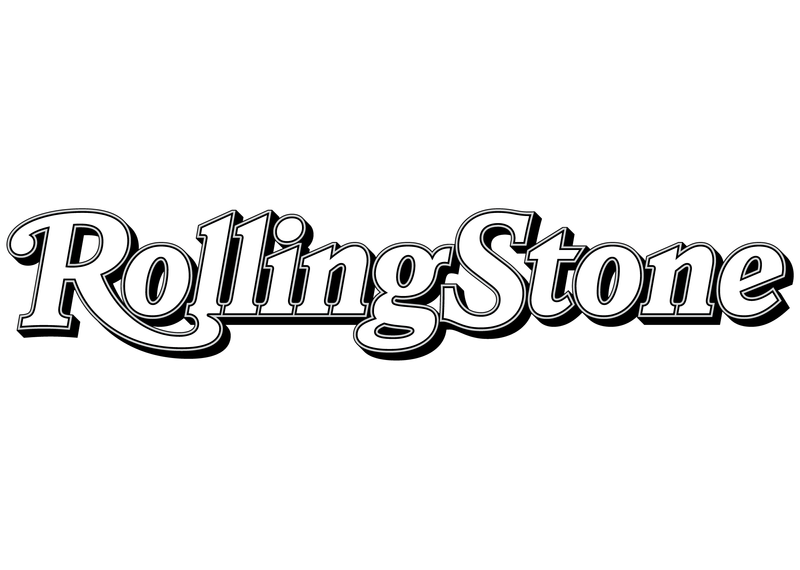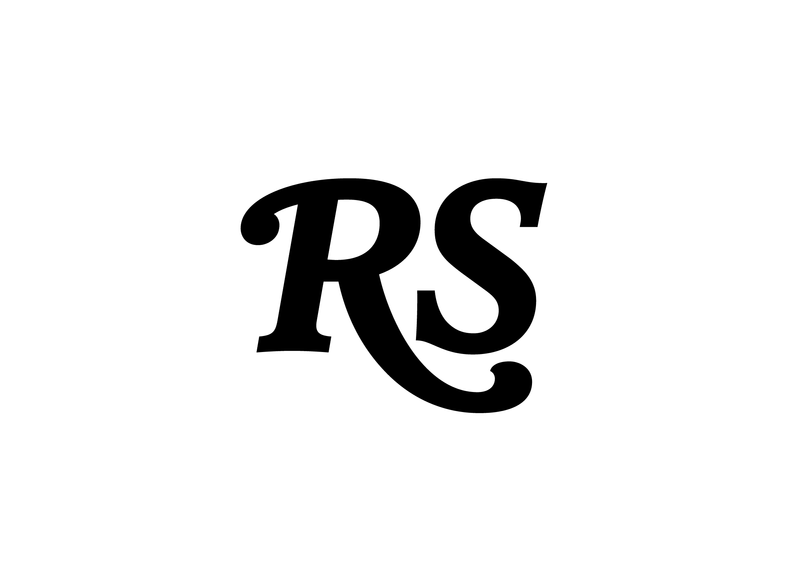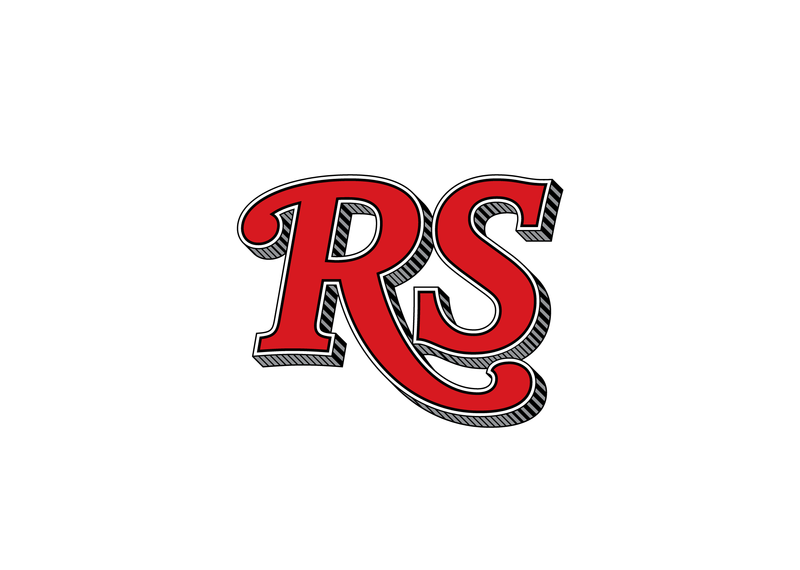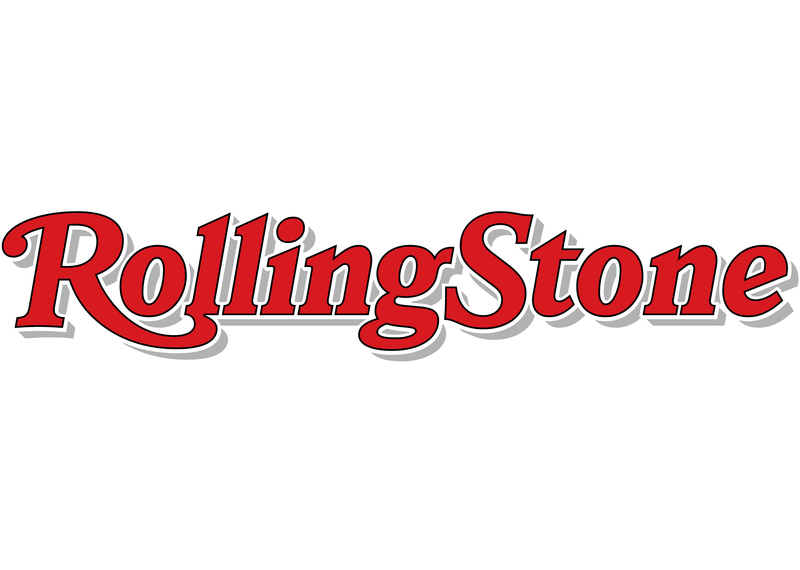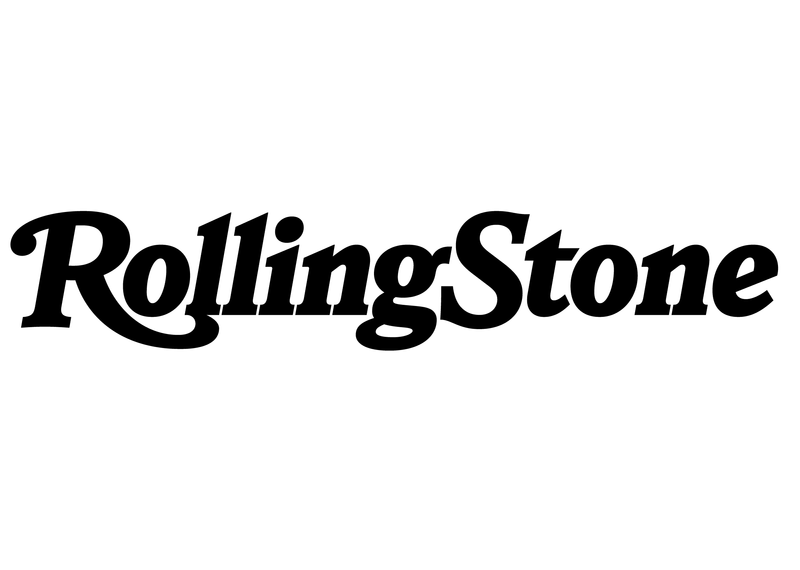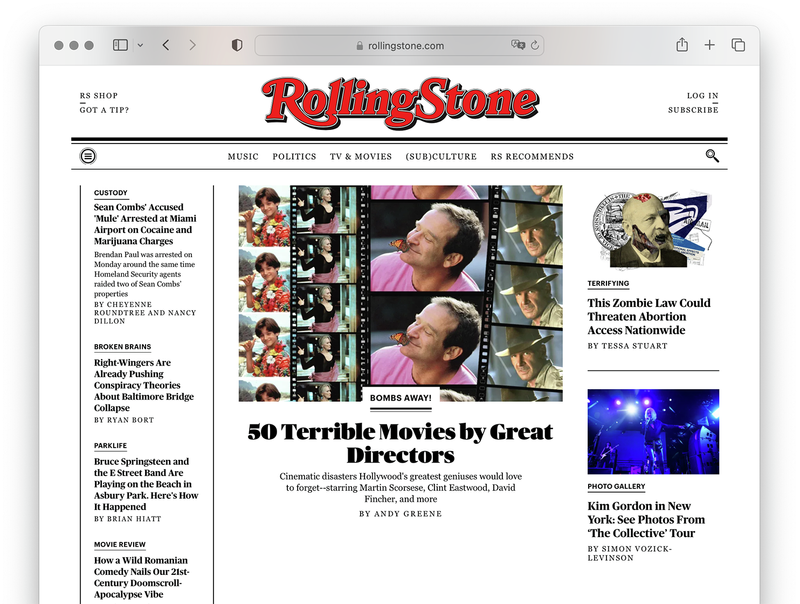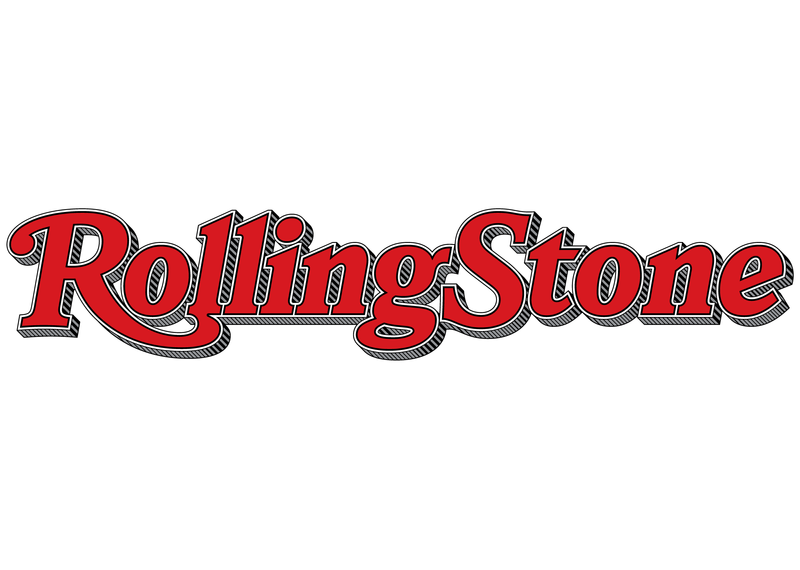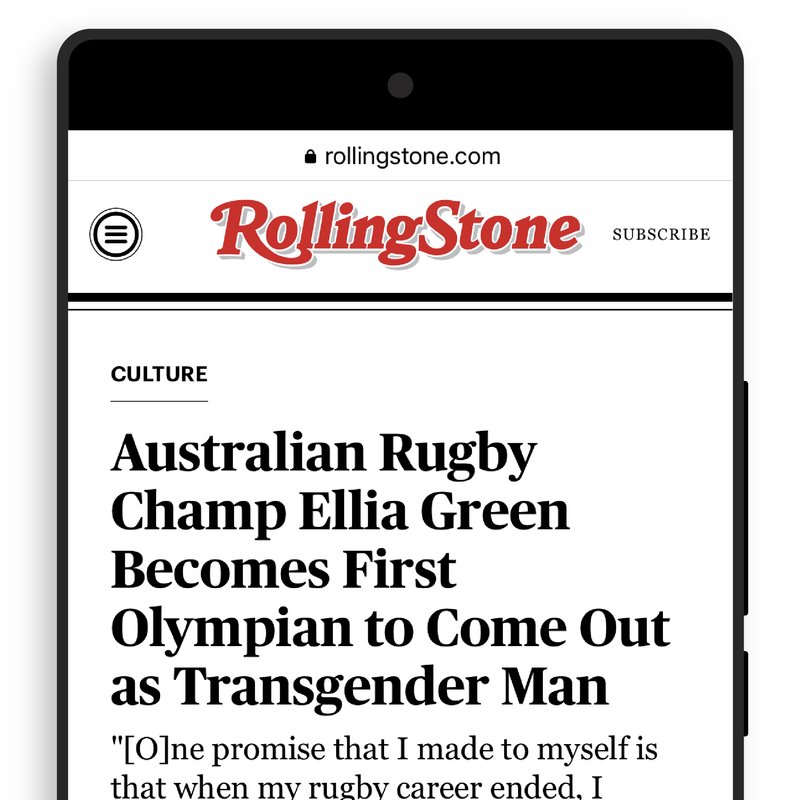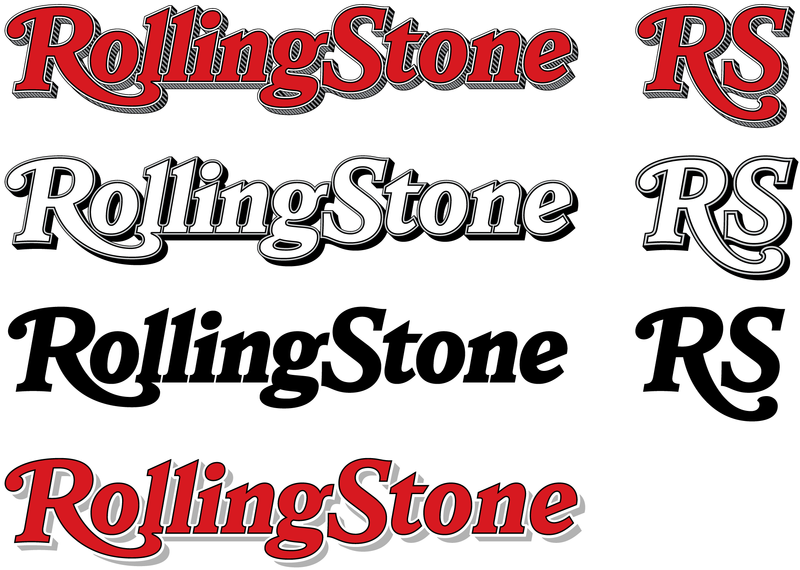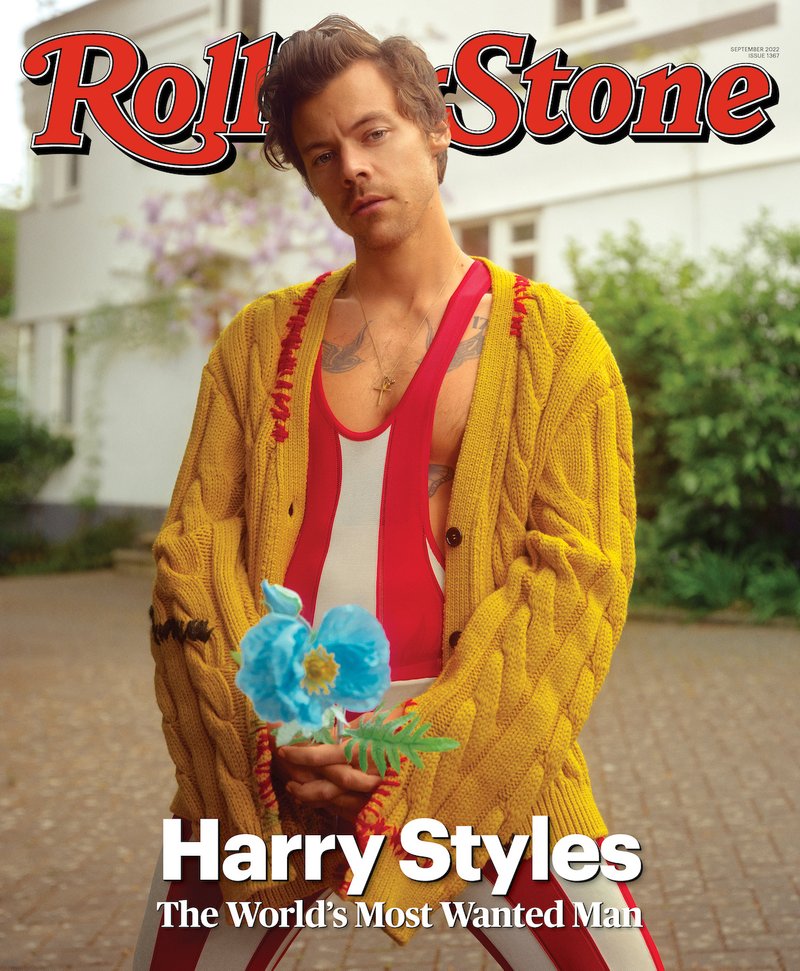
Custom lettering for Rolling Stone magazine
The new Rolling Stone logo, cropped
A glimpse of the new Rolling Stone wordmark
Lettering, legacy, and rock ’n’ roll
Few magazines have a visual presence as iconic as Rolling Stone’s—outlandish, ornate, and memorable. Since its founding by publisher Jann Wenner in 1967, it has been an important vanguard of culture and political news viewed through the lens of music and musicians.
Roger Black, art director of Rolling Stone from 1976 to 1978 and currently chair of Type Network, approached XYZ Type to redesign the classic logo in 2021. As one of Type Network’s foundry partners, we were thrilled at the prospect of putting our own lettering on the cover of this influential magazine, and intrigued by the challenge of celebrating the publication’s visual history by creating something entirely new.
The assignment was a paradox. How could we make the logo look like it did in the past, without making it feel dated? My hope is that loyal readers will believe the old logo is back, but on closer inspection will be surprised to notice how much it has been modernized.
Jesse Ragan, XYZ Type
A history of the Rolling Stone logo
Rolling Stone’s original logo from 1967, in simple black and white
The 1967 logo, drawn by Rick Griffin
1967–1977: For Rolling Stone’s first decade, it sported a logo concept originally sketched by San Francisco poster artist Rick Griffin and later refined by type designer John Pistilli. Striped and swashy, it reveled in the Summer of Love’s spirit of excess, pairing the exuberance of psychedelic lettering with the structure of Victorian-era typography.
Rolling Stone’s old logo from 1975, in simple black and white
The 1975 logo, designed by John Pistilli (as digitized by Jon Valk)
1977–1981: When Roger Black took over as the magazine’s art director, he commemorated its 10th anniversary by commissioning a fresh logo from Jim Parkinson, with a corresponding custom typeface. It showed that the magazine was serious—but not too serious—with a dimensional oblique serif style that Jim colorfully described as “Nicholas Jenson on acid.”
Rolling Stone’s 1977 logo, in simple black and white
The 1977 logo, designed by Jim Parkinson
1981–2018: After several years, Jann Wenner tired of the new logo’s more sober appearance and asked Jim to revisit his work, adding swashes, ball terminals, a complex g, and bulked-up dimensionality. This was a logo that commanded attention on the cover and demanded to be big. It lasted for 37 years and remains one of the most recognizable symbols of Americana.
Rolling Stone’s old logo from 1981, in simple black and white
The 1981 logo, designed by Jim Parkinson
2018–2022: Creative director Joseph Hutchinson, who had art directed the magazine for over a decade, had tangoed with its temperamental logo for just as long. In 2018, he brought Jim back for a third time for a dramatic shift to a single-color version of the logo, which could be used consistently in print and on the web. In the process of drawing this version, Jim modernized the underlying letterforms, prudently ironing some of the wrinkles out of their 1980s aesthetic.
Rolling Stone’s old logo from 2018, in solid black
The 2018 logo, designed by Jim Parkinson
2022: After living with the flat logo for four years, Gus Wenner (Jann’s son, and now CEO of the magazine) and Joe felt the visual identity had lost its signature audacity when the letterforms lost their depth. Because the magazine often uses dramatic photography that partially covers up the logo itself, the brand of the magazine had gotten muted. And the one-color lettering often necessitated a drop shadow to stand out on a busy background.
The new Rolling Stone logo, in full color
The new logo, designed by Jesse Ragan
But they quickly identified a problem: simply returning to the magazine’s complex earlier logo would be a step backward. Its fine details clog up and become illegible at small sizes, especially onscreen. And the 1981 version looked strikingly dated compared to Jim’s recent modernization of the underlying lettering. Rolling Stone needed a logo that would speak to its legacy and embrace the growing success of its digital platforms, with solid footing for 2022 and beyond.
The planned launch of a new website was the perfect anchor for the update. After 50 years of drawing logos—three of them for Rolling Stone—Jim Parkinson had retired. So Joe called on Roger Black to revisit the publication that had helped make his name as an art director, and Type Network in turn partnered with us for custom lettering design by Jesse Ragan.
Two Rolling Stone logos, 2022 and 1977, are shown together with highlights on key features.
Incorporating strengths of the 1977 logo
Two Rolling Stone logos, 2022 and 1981, are shown together with highlights on key features.
Incorporating strengths of the 1981 logo
Two Rolling Stone logos, 2022 and 2018, are shown together with highlights on key features.